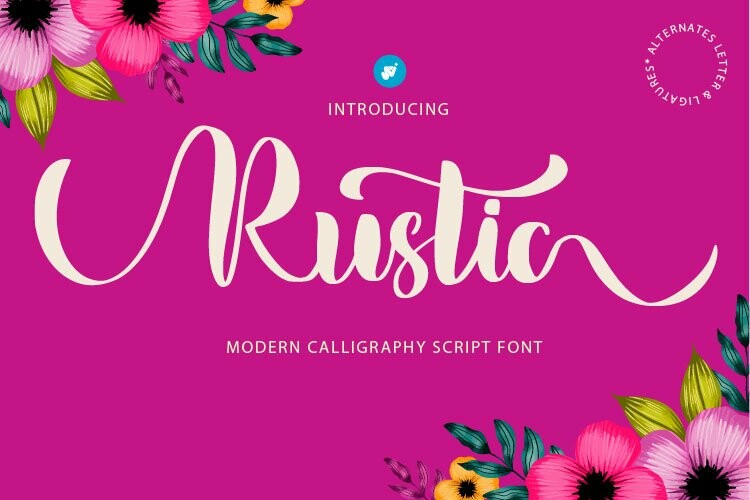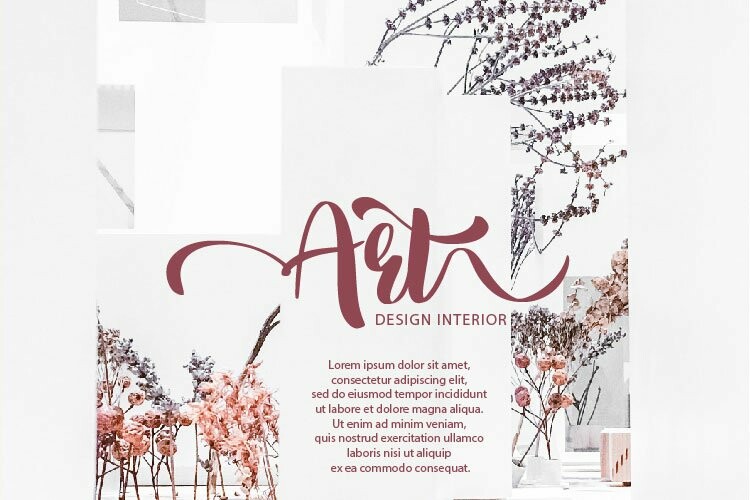
Rustic Wedding font
Rustic Wedding font, modern script typeface, using style hand made with brushing. Rustic a beautiful for wedding card design, logotype, website header, fashion design and any more.